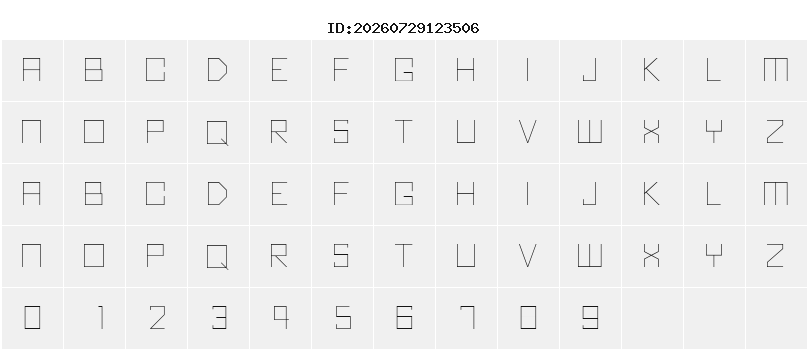
• Font Name: Kubus Thin
• Designer: André Noboru Uenojo
• Description: Kubus Thin is a font by PYRS Fontlab Ltd. / Made with FontLab, designed by André Noboru Uenojo in 2012.
Kubus Thin.ttf is a modern, elegant sans-serif font designed for ultimate readability and visual harmony. Perfect for branding, headlines, web design, and print materials.